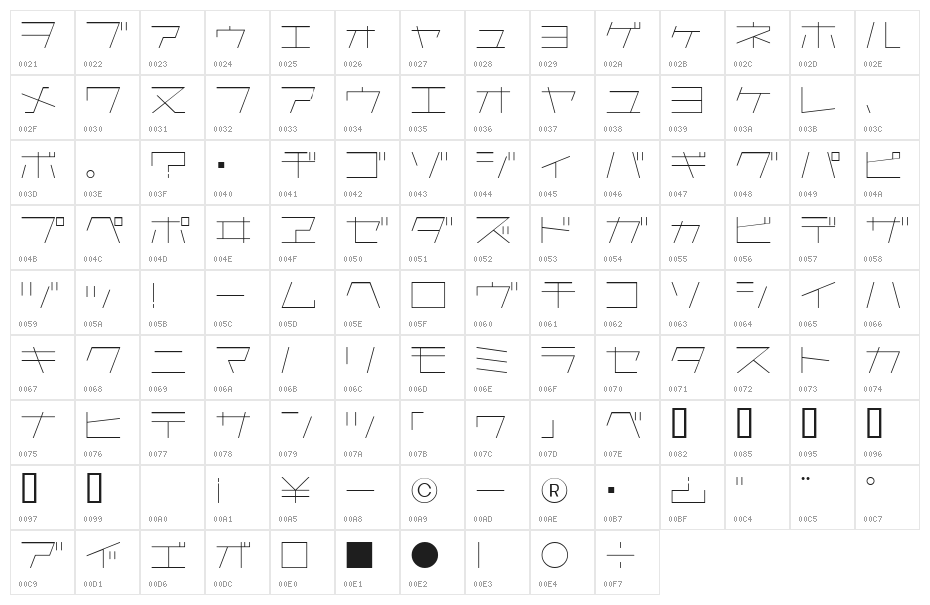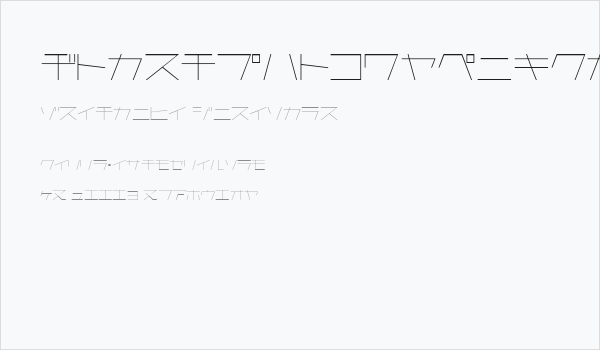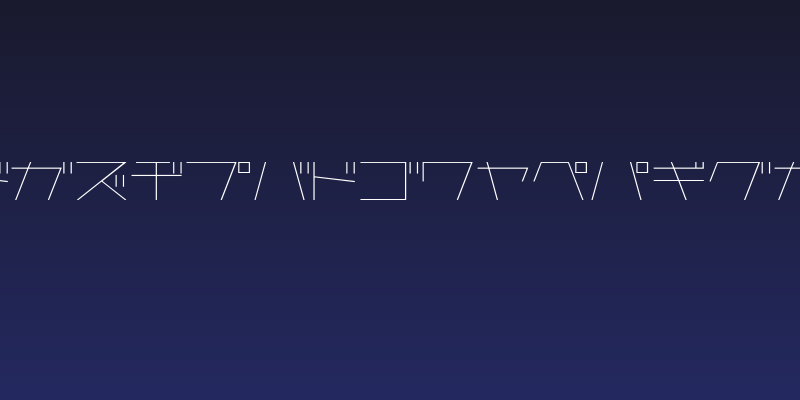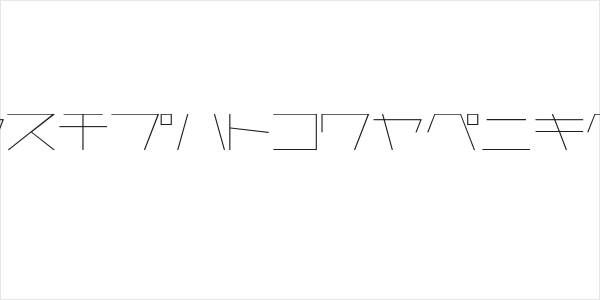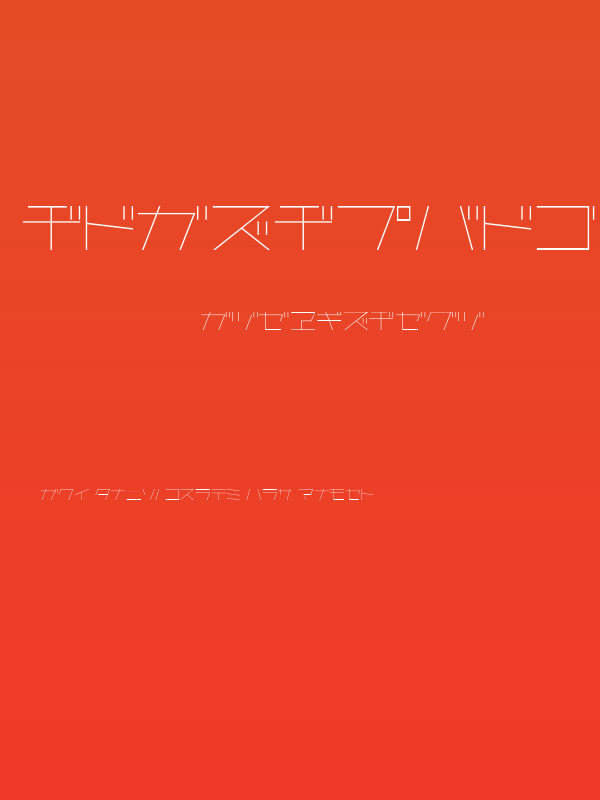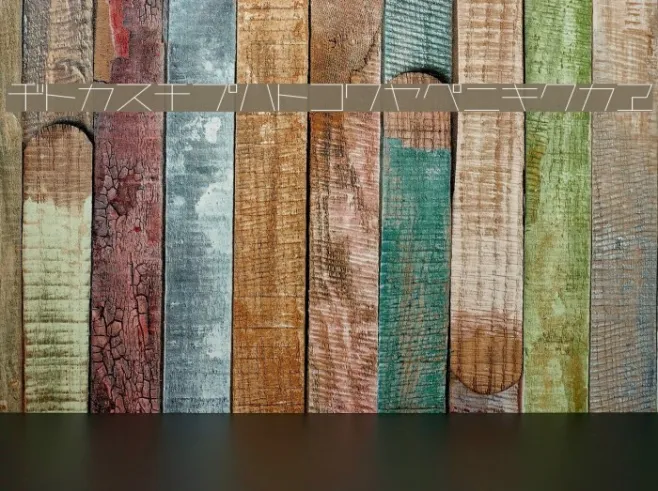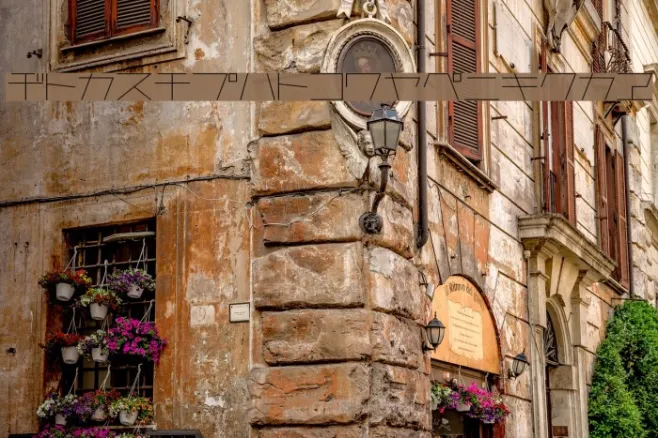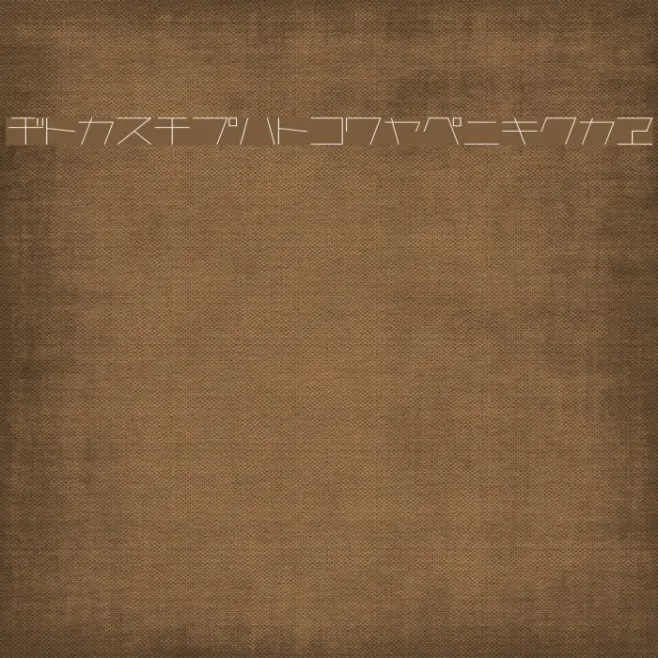
AstraKfsb07LightO Font
AstraKfsb07LightO Description
This font features a minimalist and geometric design, characterized by thin, straight lines and sharp angles. The characters are constructed with a consistent stroke width, giving it a clean and modern appearance. The simplicity of the design makes it highly legible, while the geometric shapes add a unique and futuristic touch. The font maintains a uniform height across all characters, contributing to its orderly and structured look. This style is particularly effective for creating a sleek and contemporary aesthetic, suitable for various digital and print applications.
| Use Case | Headlines, Logos, Digital interfaces |
| Proposed Projects | Ideal for tech branding, modern art posters, digital interfaces, and minimalist design projects. |